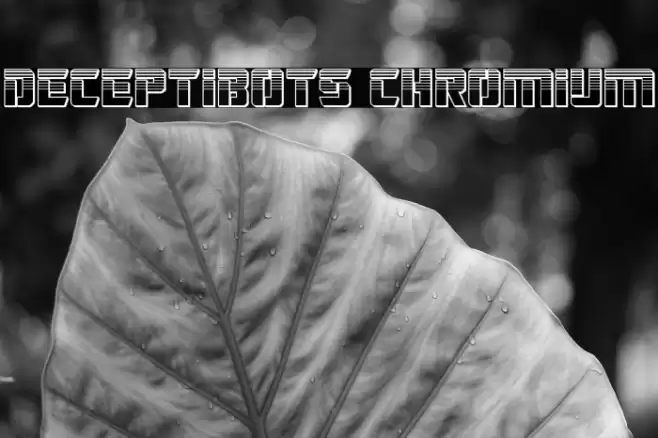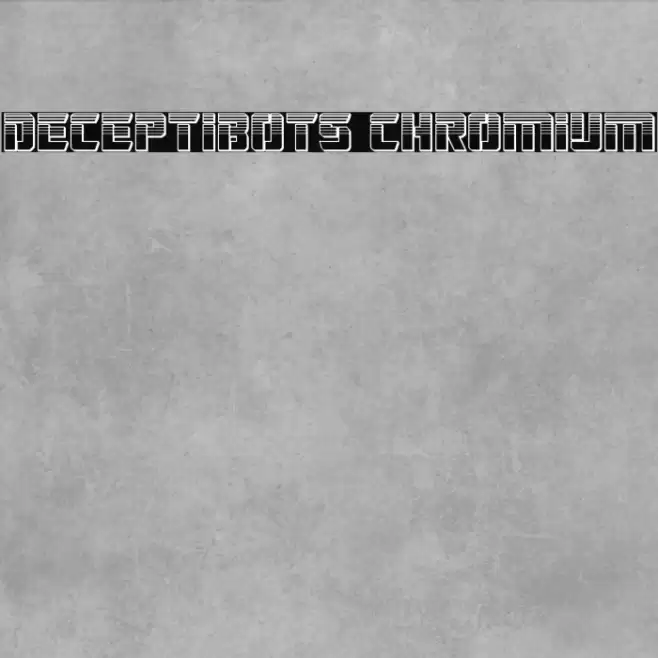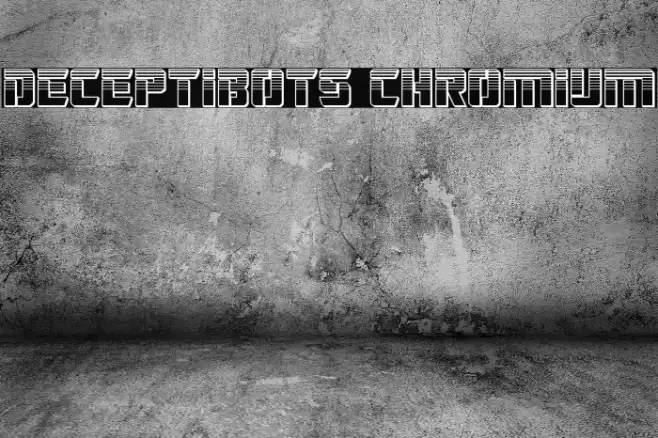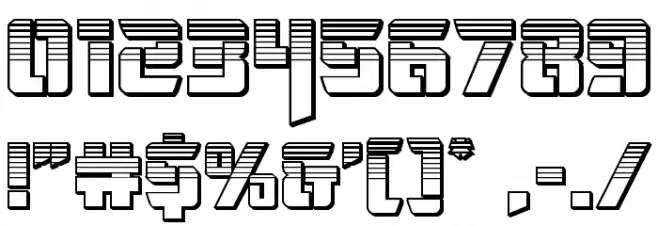
Deceptibots Chromium Font
Deceptibots Chromium Description
This font features a bold, futuristic design with a three-dimensional effect created by parallel lines and angular shapes. The letters are constructed with a strong geometric influence, giving them a mechanical and robotic appearance. The uppercase and lowercase letters maintain a consistent style, emphasizing sharp edges and a sense of movement. Numbers and special characters follow the same design principles, ensuring uniformity across all glyphs. The font's unique structure makes it ideal for projects that require a modern and technological aesthetic.
A bold, futuristic font with a mechanical, three-dimensional design from Uncategorized fonts.
- Proposed Projects: Ideal for sci-fi themed projects, tech branding, video game titles, and futuristic posters.
- Overall Style: Futuristic, Mechanical